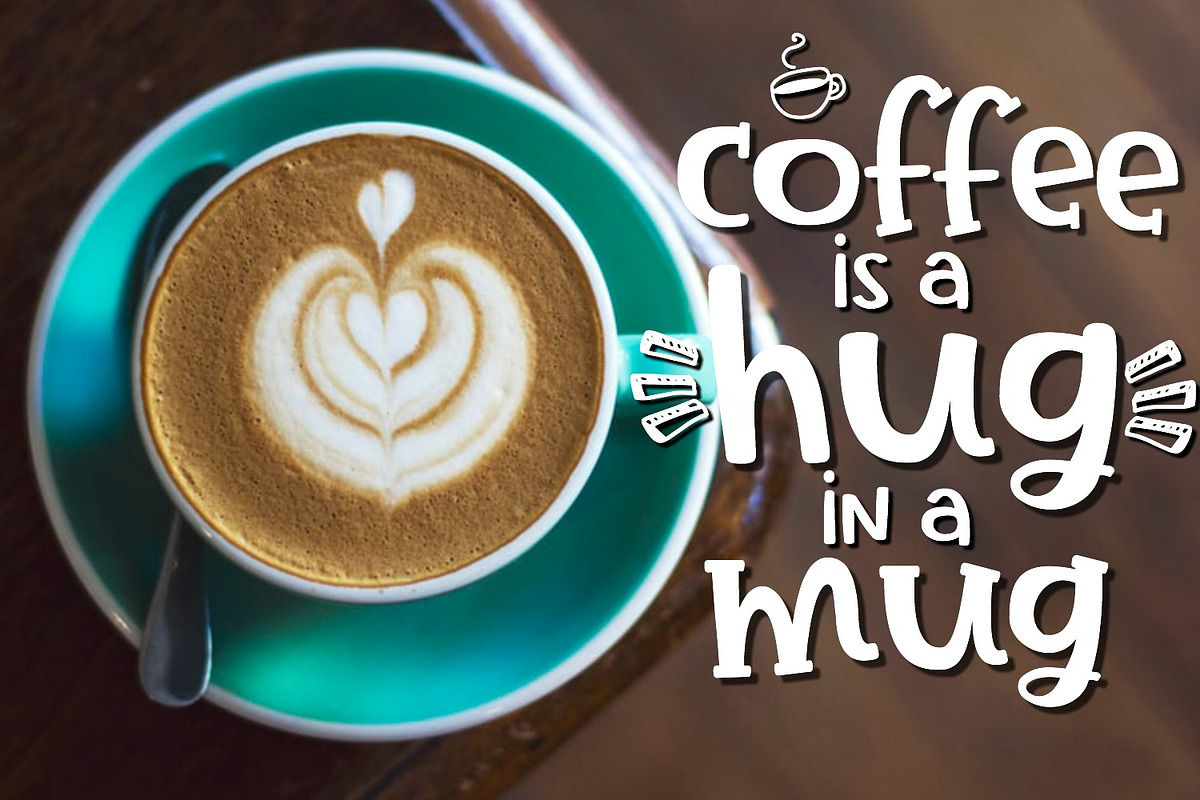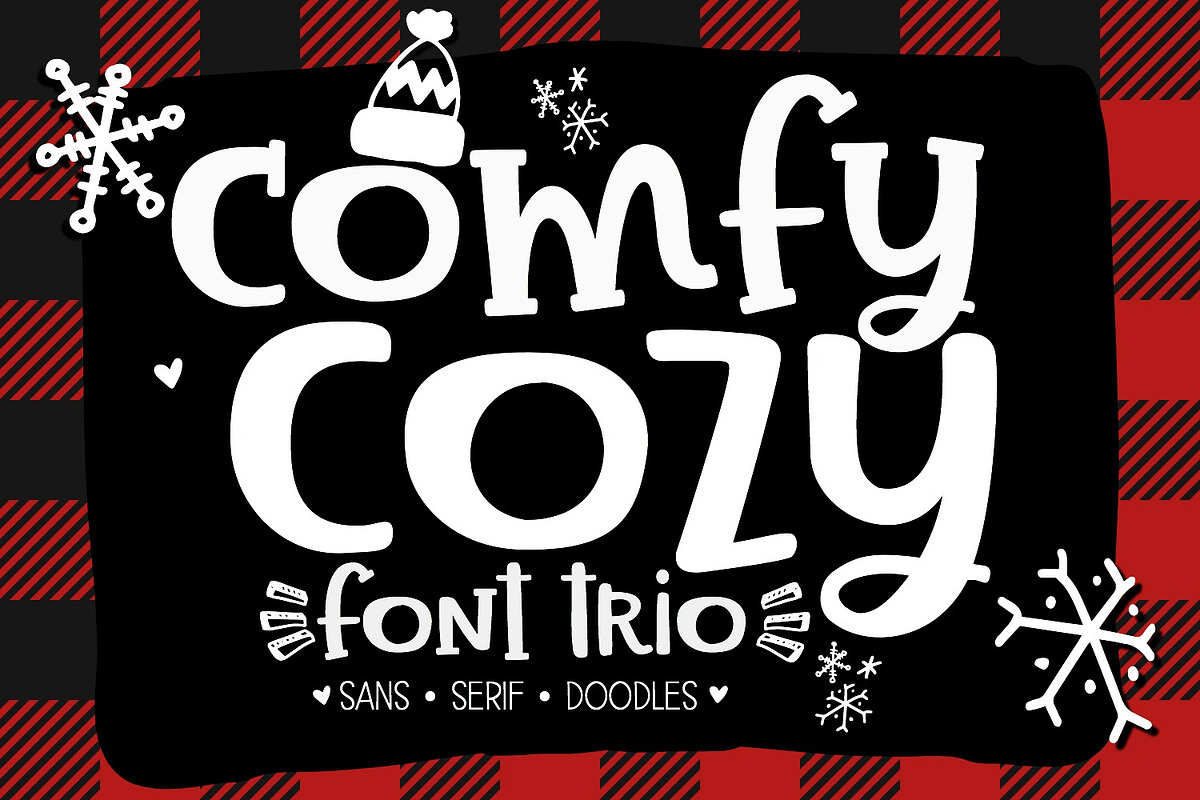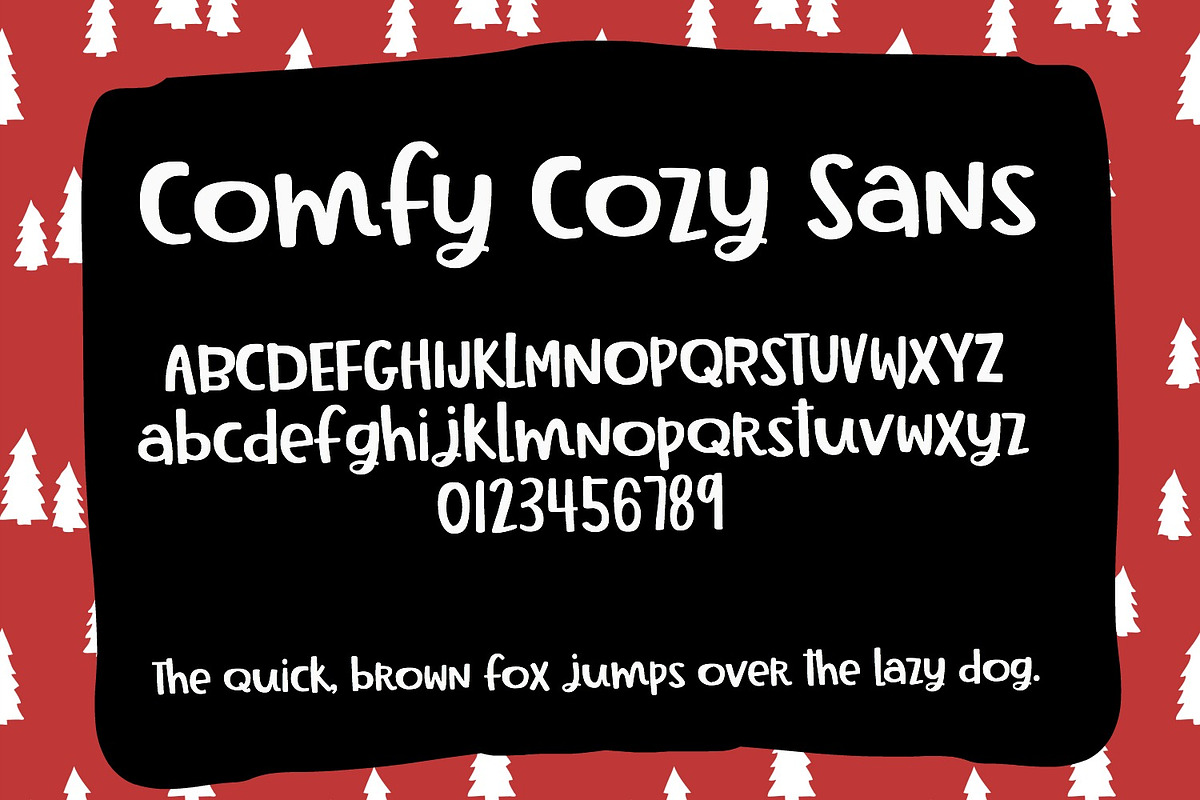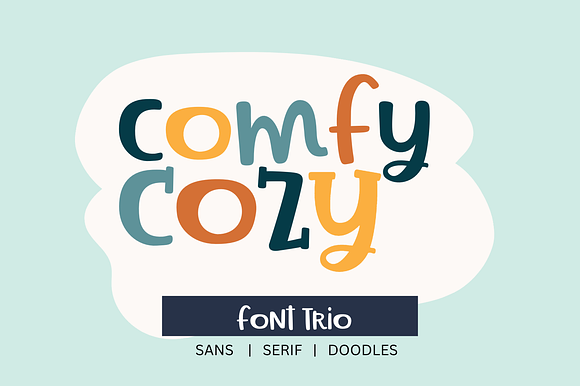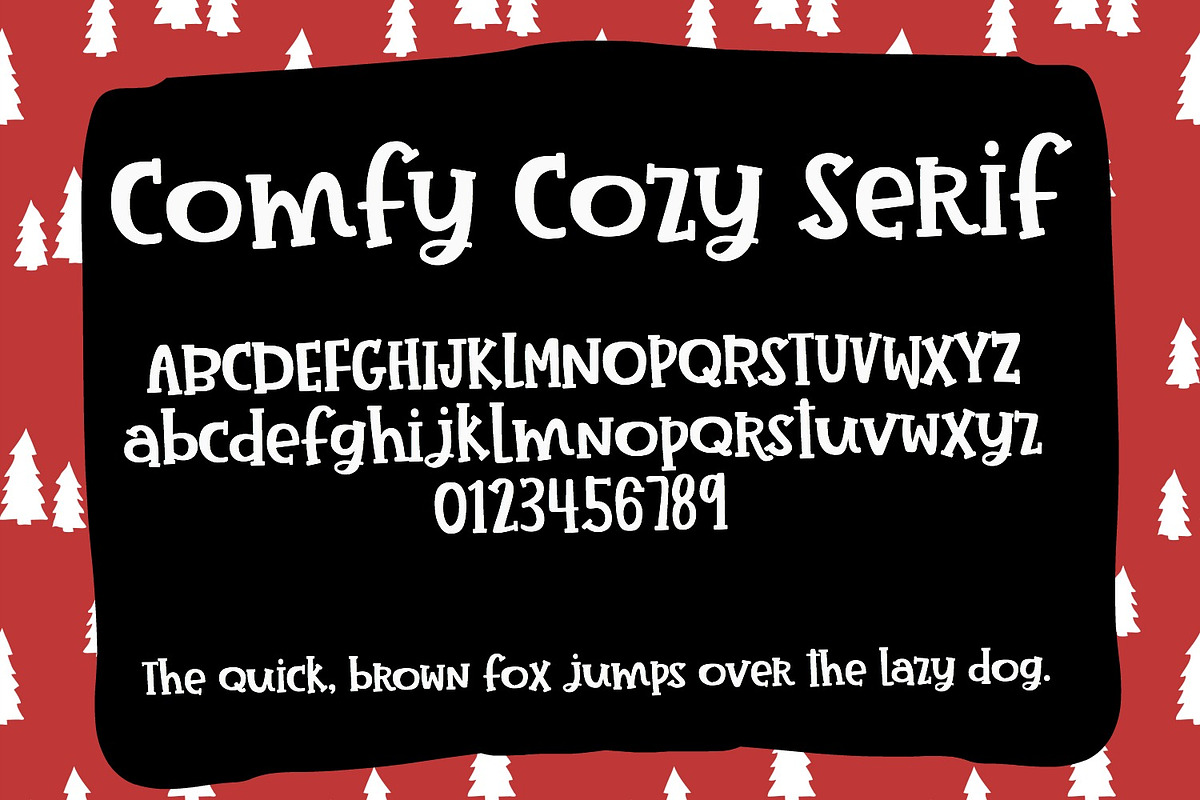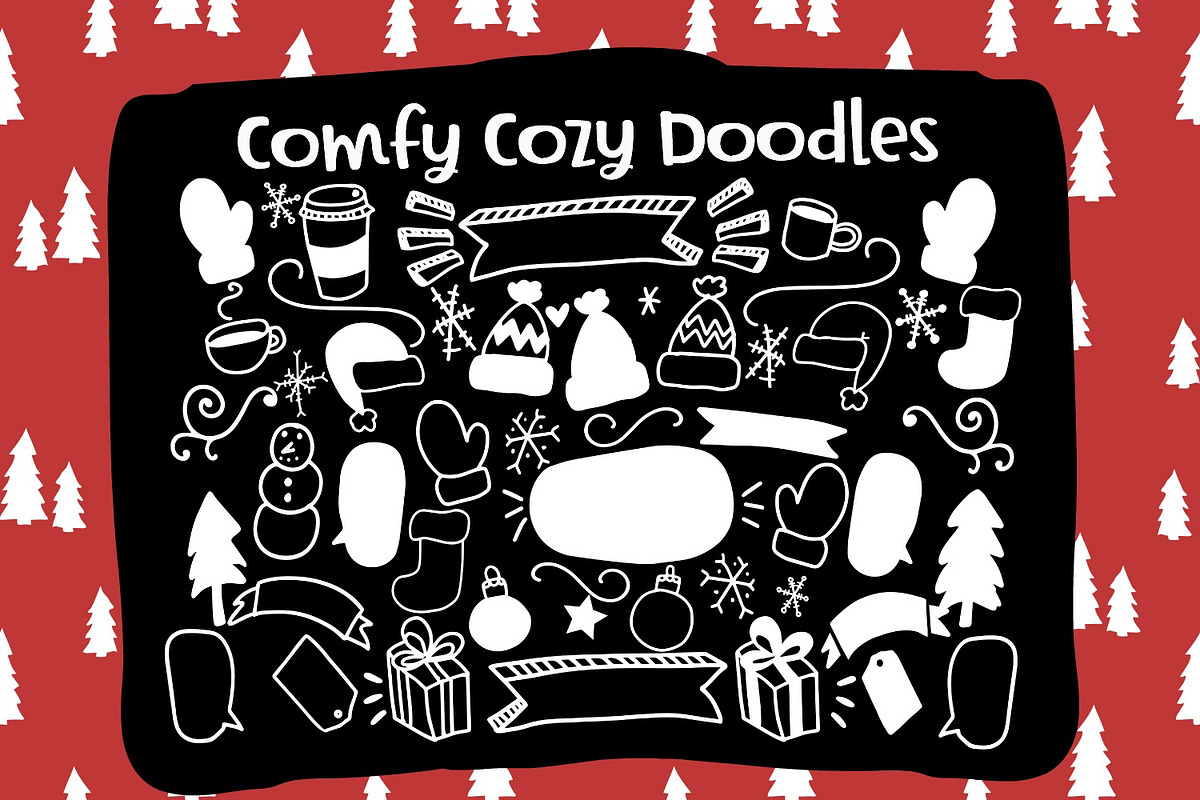
Comfy Cozy Handwritten Font
Meet Comfy Cozy: a handwritten font in sans and serif styles + winter/Christmas themed doodles. I've made this font as smooth as possible, reducing the amount of nodes in each glyph to ensure optimal cutting with Cricut, Silhouette or other craft machines. Comfy Cozy supports English and most Western European languages.